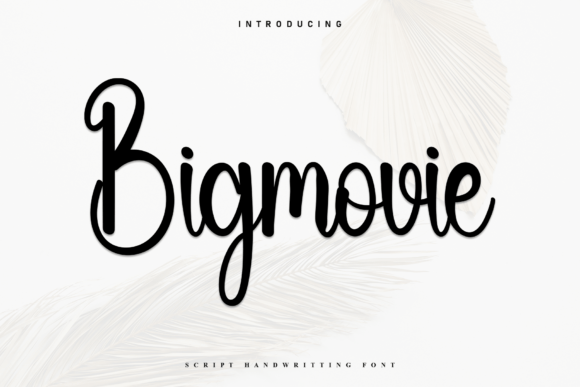
Introducing Bigmovie Font: The Perfect Handwritten Font for Your Design Projects
Are you looking for a font that can add a touch of warmth and personality to your design projects? Look no further than Bigmovie Font, a charming handwritten font that is filled with a sense of heartfelt perfection. With its smooth strokes and organic lines, Bigmovie Font is the perfect choice for designers and crafters who want to create beautiful and engaging designs.
What Makes Bigmovie Font So Special?
Bigmovie Font is a unique and versatile font that is perfect for a variety of design projects. Its smooth strokes and organic lines evoke a relaxed atmosphere, making it ideal for designs that require a personal touch. Whether you’re working on a branding project, creating invitations, or designing social media graphics, Bigmovie Font is the perfect choice.
Characteristics of Bigmovie Font
So, what makes Bigmovie Font so special? Here are just a few of its key characteristics:
• Smooth Strokes: Bigmovie Font features smooth, flowing strokes that give it a natural and organic feel.
• Organic Lines: The font’s organic lines add a touch of whimsy and personality to your designs.
• Handwritten Style: Bigmovie Font is a handwritten font, which gives it a personal and heartfelt feel.
• Versatile: Bigmovie Font is perfect for a variety of design projects, from branding and invitations to social media graphics and more.
Uses for Bigmovie Font
Bigmovie Font is a versatile font that can be used for a wide range of design projects. Here are just a few ideas to get you started:
• Branding: Use Bigmovie Font to create a unique and memorable brand identity for your business or organization.
• Invitations: Add a personal touch to your invitations with Bigmovie Font, perfect for weddings, parties, and other special events.
• Social Media Graphics: Use Bigmovie Font to create eye-catching social media graphics that will help you stand out from the crowd.
• Packaging: Add a touch of personality to your product packaging with Bigmovie Font.
Tips for Using Bigmovie Font
Here are a few tips for getting the most out of Bigmovie Font:
• Use it sparingly: Bigmovie Font is a statement font, so use it sparingly to add emphasis and personality to your designs.
• Pair it with other fonts: Bigmovie Font pairs well with other fonts, so don’t be afraid to experiment with different combinations.
• Experiment with colors: Bigmovie Font looks great in a variety of colors, so don’t be afraid to experiment and find the perfect hue for your design.
Bigmovie Font is a charming handwritten font that is perfect for designers and crafters who want to add a touch of warmth and personality to their design projects. With its smooth strokes and organic lines, Bigmovie Font is the perfect choice for a variety of design projects, from branding and invitations to social media graphics and more. So why wait? Download Bigmovie Font today and start creating beautiful and engaging designs!